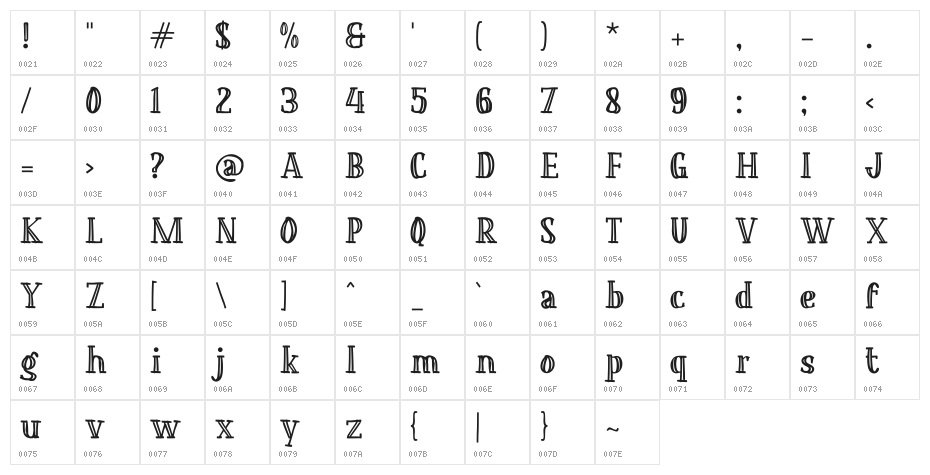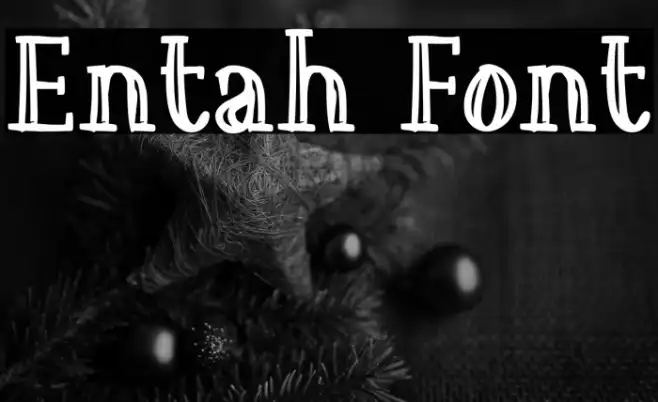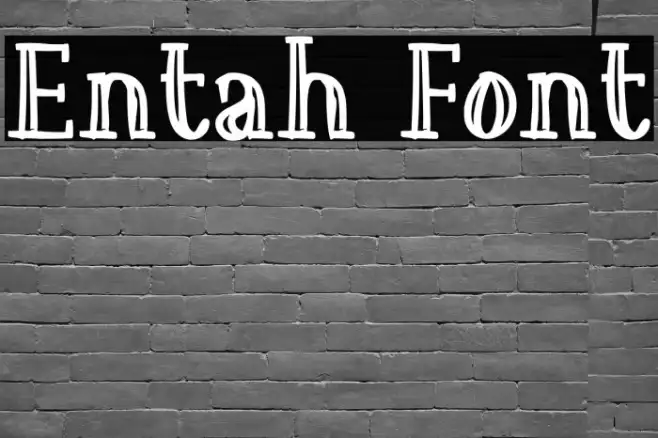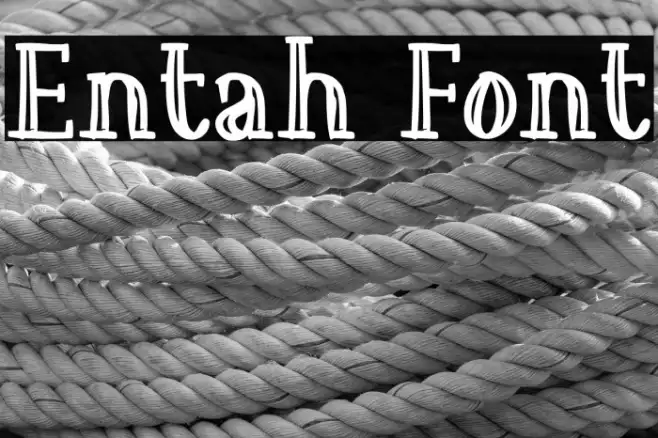
Entah Font
Entah Description
This font features a bold and playful design with a slightly whimsical touch. The characters have a distinct hand-drawn appearance, with uneven strokes and a lively, energetic feel. The uppercase letters are tall and narrow, while the lowercase letters maintain a consistent style with a bit more curvature. The numbers and special characters follow the same playful aesthetic, making the font suitable for creative and informal projects. The overall look is both unique and approachable, with a touch of vintage charm.
| Overall Style | Playful, Vintage |
| Proposed Projects | Ideal for children's books, playful branding, greeting cards, and creative posters. |